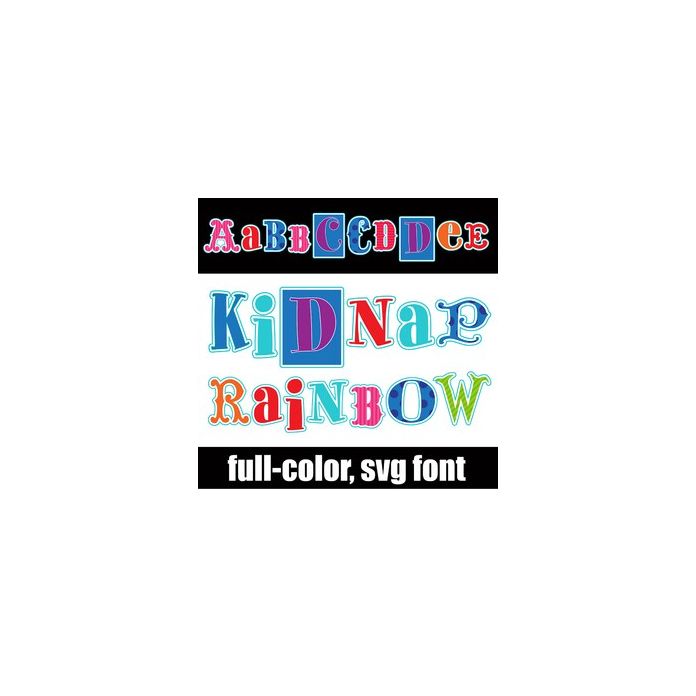
This full-color font features a rainbow color palette and a mix of font styles. There is an alt case w/ additional colors you can access through your system or Silhouette's glyph map.